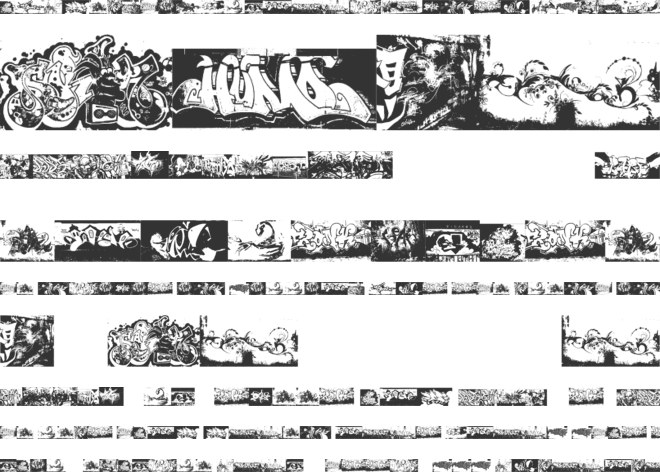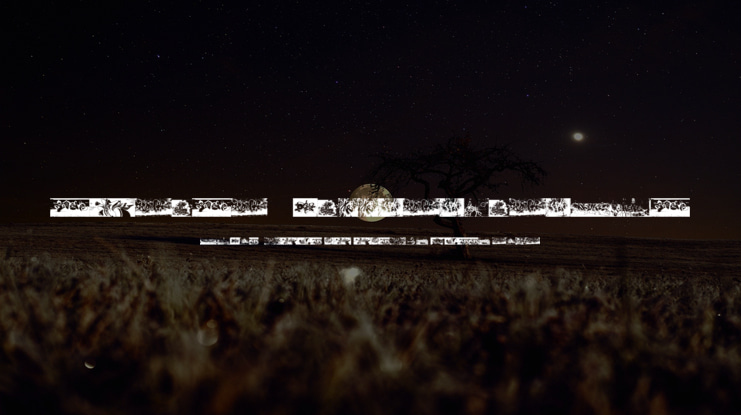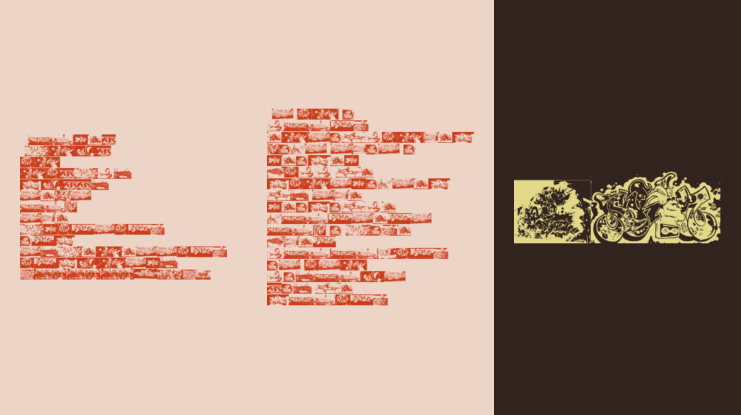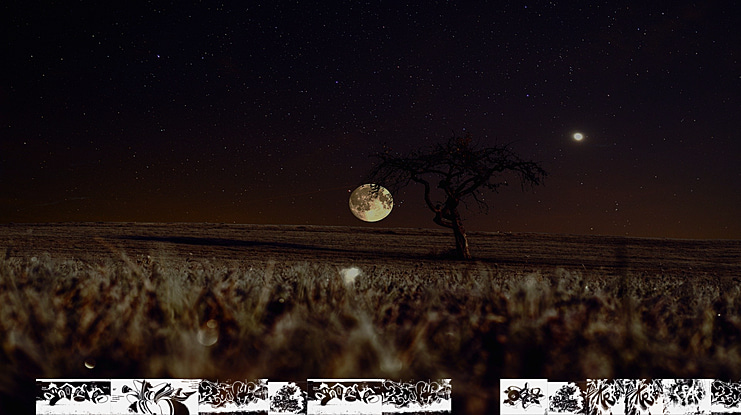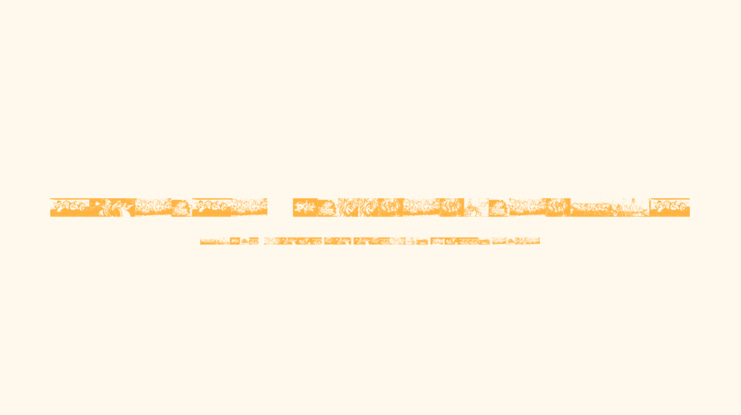
Instant Graffitication Font
Create your own walls of any length! Many high resolution glyphs so you can custom create your own urban backdrops. Enjoi!